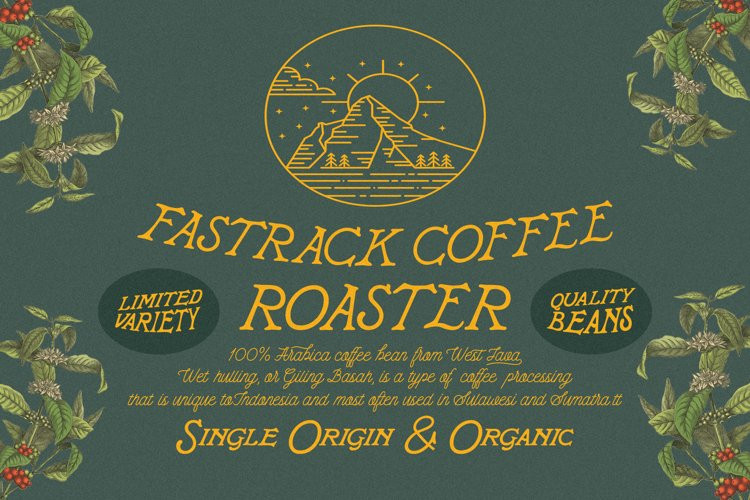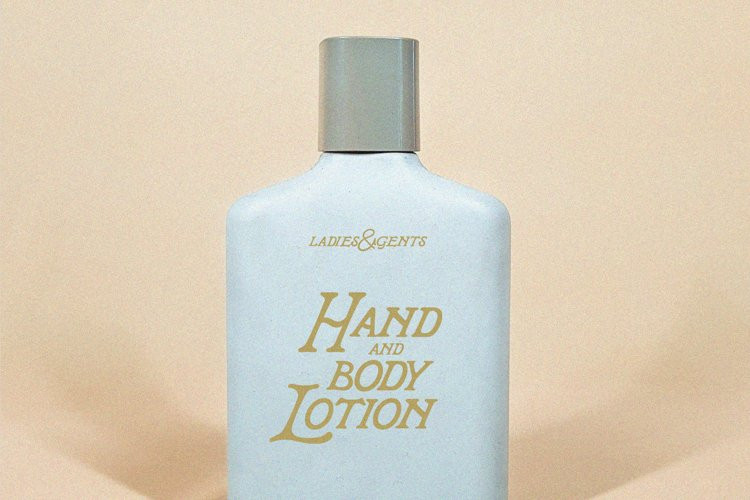
Sherdan Font
Sherdan FontSherdan is a 70’s style hand-drawn retro serif. Comes with with standard characters, number and punctuation. Suitable for display needs such as signage, poster, logo, label, headline, cover design, etc.